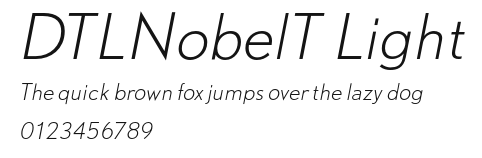
• Font Name: DTLNobelT Light
• Font Style: Light Italic
About DTLNobelT Light.otf
DTLNobelT Light.otf is a modern, elegant sans-serif font designed for ultimate readability and visual harmony. Perfect for branding, headlines, web design, and print materials.